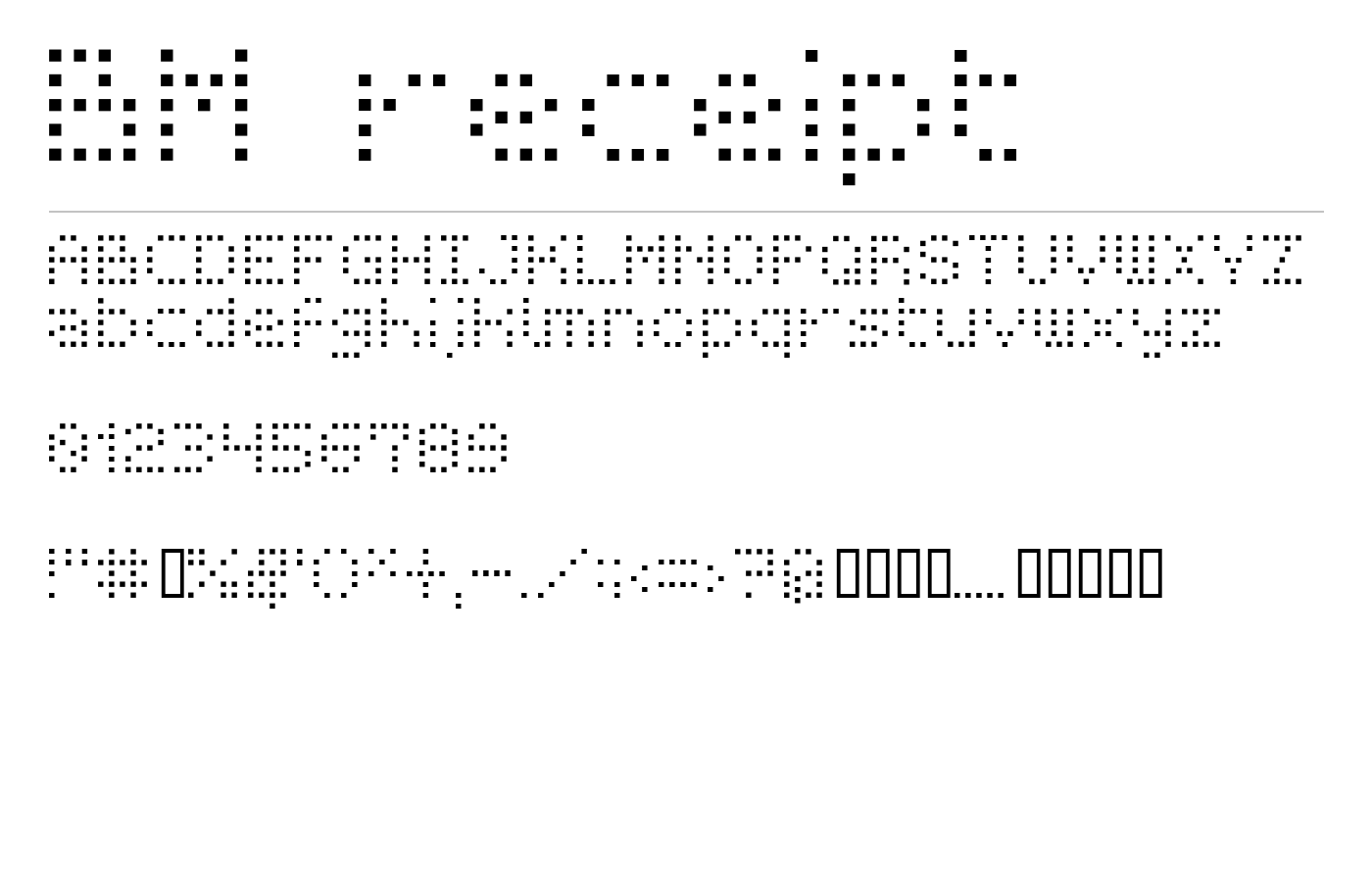
BM Receipt Font is a monospaced, pixel-style typeface that mimics the look of traditional digital or printed receipts with a unique dot-matrix appearance. Its narrow, regular weight and consistent geometric dot pattern give it a modern, technical feel, making it ideal for projects that want to evoke retro digital displays, cash registers, or tech-inspired designs. This font works well for branding, signage, or creative digital interfaces where a nostalgic yet clean electronic aesthetic is desired.
BM receipt Font
About BM receipt Font